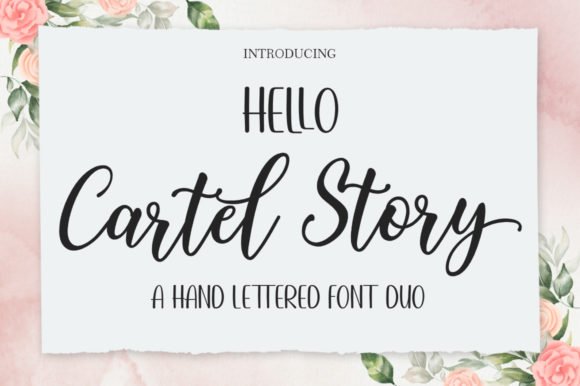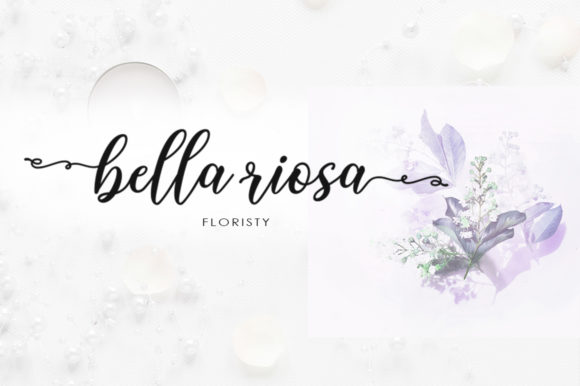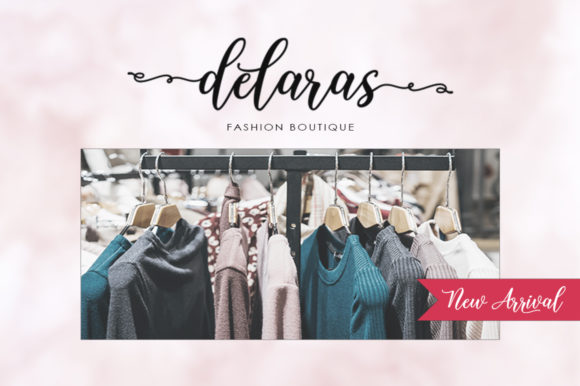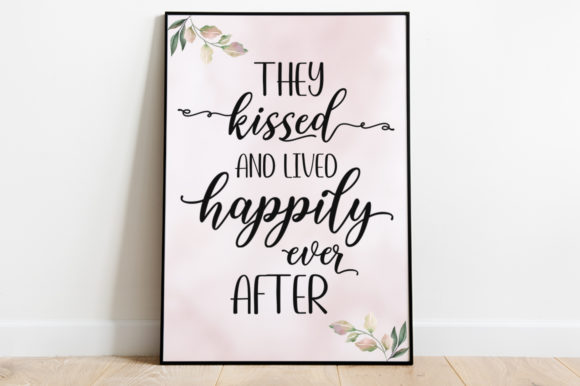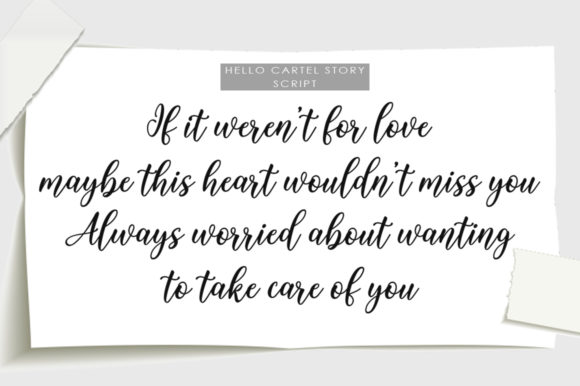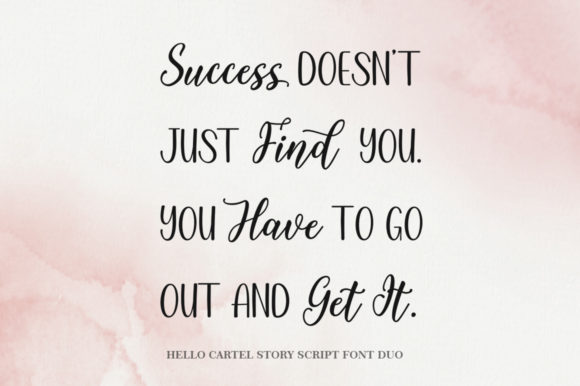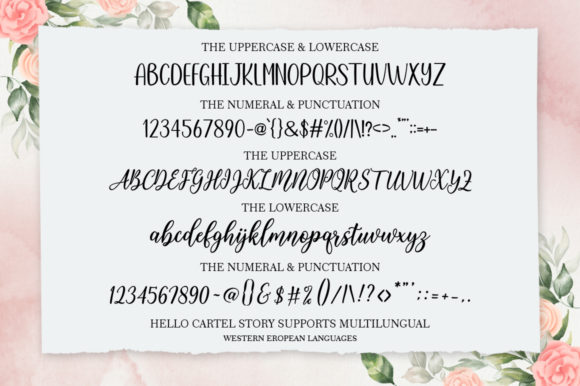
The Perfect Combination: Bringing Personality to Your Designs
Have you ever stared at a blank page, wondering how to bring your creative vision to life? You’re not alone. We’ve all been there, searching for the perfect font to set the tone for our next project. That’s where the Hello Cartel Story Font comes in – a delightful duo of script and sans serif that’s sure to capture your audience’s attention.
This charming font has a way of adding a casual, yet elegant touch to any design. Whether you’re crafting a logo, wedding invitation, or social media post, Hello Cartel Story Font is the perfect companion. With its versatility, you can use it for a wide range of purposes, from signage and labels to news posters and badges.
Hello Cartel Story Font Key Features
- Unique Characteristics: This font features a unique blend of modern and vintage elements, with intricate details and ornate flourishes, making it perfect for creating eye-catching and memorable designs.
Hello Cartel Story Font Review
I’ve been playing around with the Hello Cartel Story Font for a while now, and here’s my honest take on it.
- Unique style: The font has a distinct, quirky feel that sets it apart from other fonts in its category.
- High-quality glyphs: The characters are well-designed and have a clear, crisp appearance.
- Great for titles and headings: The font’s bold, eye-catching style makes it perfect for grabbing attention in titles and headings.
- Limited legibility: At smaller font sizes, the font can become difficult to read due to its irregular shape and lack of clear letterforms.
- Not ideal for large blocks of text: While the font is great for titles and headings, it’s not the best choice for large blocks of text due to its high visual density.
- Not suitable for all audiences: The font’s quirky style may not appeal to everyone, and some users may find it too busy or distracting.
The Hello Cartel Story Font is a great choice for designers who want to add a unique touch to their titles and headings. However, it’s not a one-size-fits-all solution, and its limitations should be carefully considered before using it in a project.
Tips for Getting the Most Out of Hello Cartel Story Font
For optimal results, use Hello Cartel Story Font in combination with bold or italic text to create emphasis and visual interest.